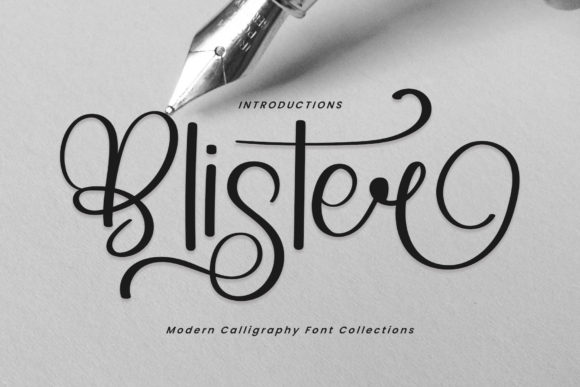
The Blister Font: A Sweet and Romantic Calligraphy Typeface
Have you ever been in the middle of a design project, and suddenly, you just can’t seem to find the right font? I recall a particularly frustrating experience while working on a wedding invitation design. My client wanted a font that was both elegant and playful, but I just couldn’t seem to find the perfect fit. That’s when I stumbled upon the Blister Font, and it completely transformed my design.
A Personal Review of Blister Font
I’m excited to share my thoughts on the Blister Font, a romantic and sweet calligraphy typeface that has quickly become a favorite in my design toolkit.
What I Love About Blister Font ✨
• ✅ The casual, yet elegant touch that makes it perfect for a variety of design projects, from wedding invitations to branding materials.
• ✅ The characters dance along the baseline, creating a beautiful, fluid look that’s sure to capture attention.
• ✅ The font’s versatility – it can be used for both digital and print projects, and it pairs well with a variety of other fonts and design elements.
While I absolutely love the Blister Font, there are a few minor quirks to be aware of:
• 🤔 Some users may find that the font’s casual nature makes it less suitable for very formal or corporate design projects.
• ⚠️ As with any script font, it’s essential to use it at the right size and in the right context to avoid looking too ornate or overwhelming.
The Backstory Behind Blister Font
While I couldn’t find any specific information on the designer’s inspiration behind Blister Font, it’s clear that the font was crafted with love and attention to detail. The designer’s goal was to create a font that would bring a touch of romance and sweetness to any design project, and I believe they’ve succeeded.
Q: What is the Blister Font best suited for?
A: The Blister Font is perfect for a variety of design projects, including wedding invitations, branding materials, packaging, and more. Its casual, yet elegant touch makes it suitable for both digital and print projects.